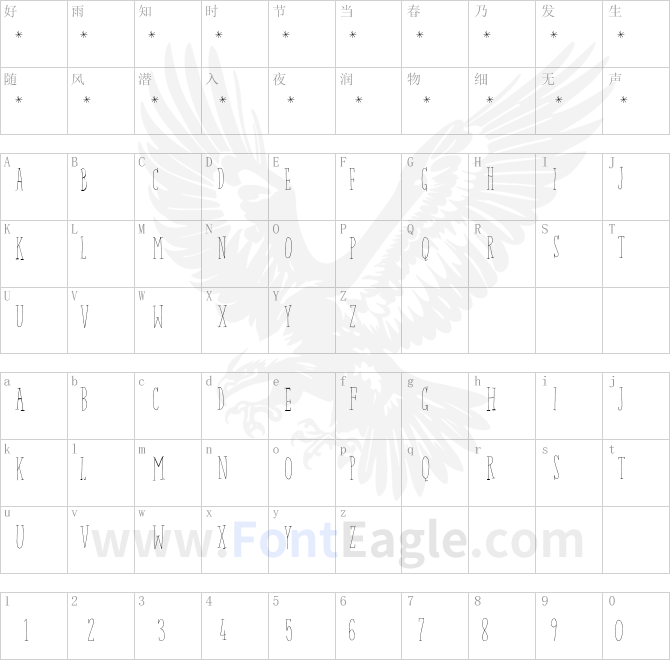
- Font name:Bacon Buffet DEMO
- Font Subfamily ID:JakobFischer/pizzadude.dk: Bacon Buffet DEMO: 2016
- Font Full Name:BaconBuffetDEMO
- Postscript:BaconBuffetDEMO